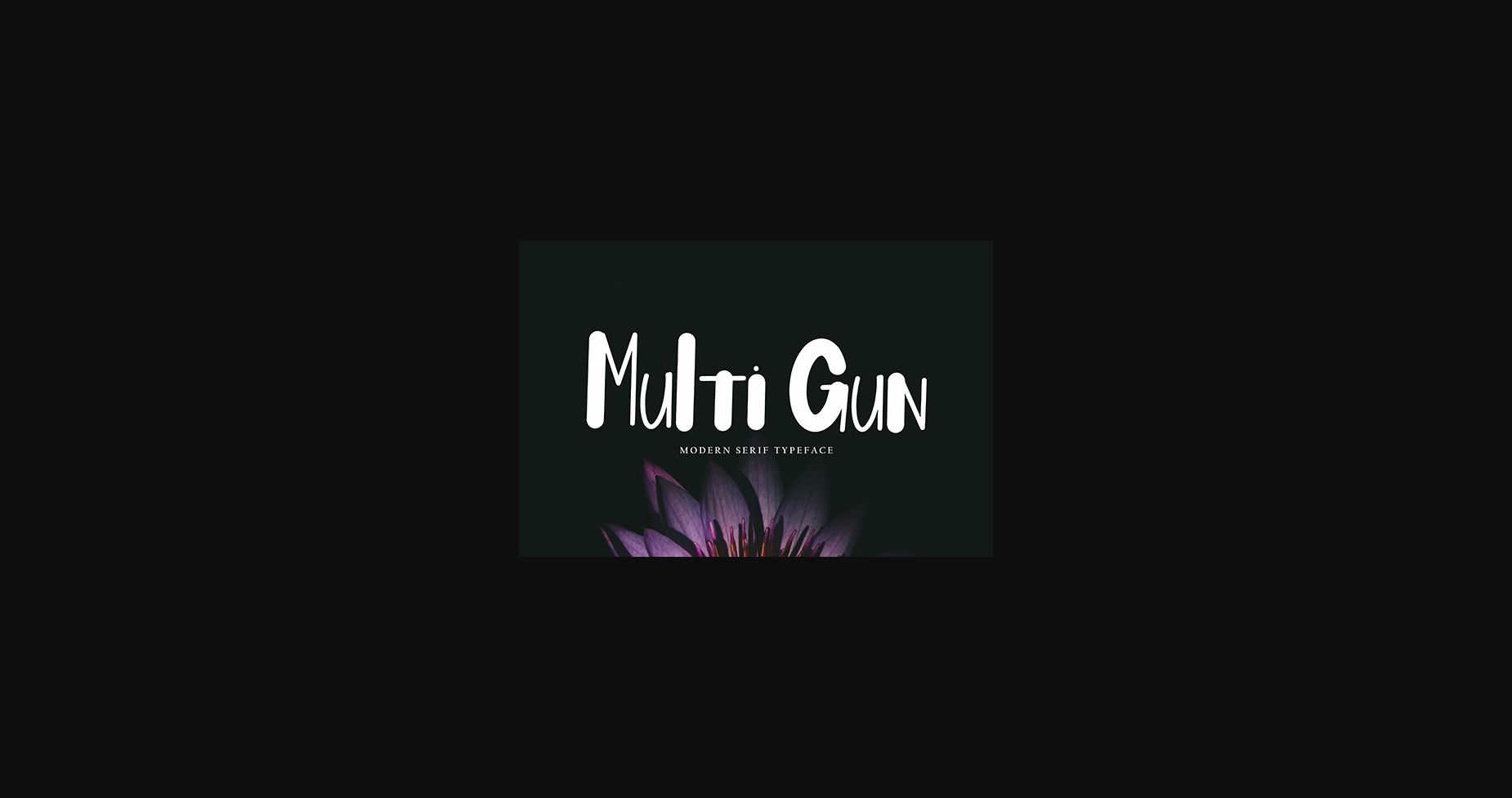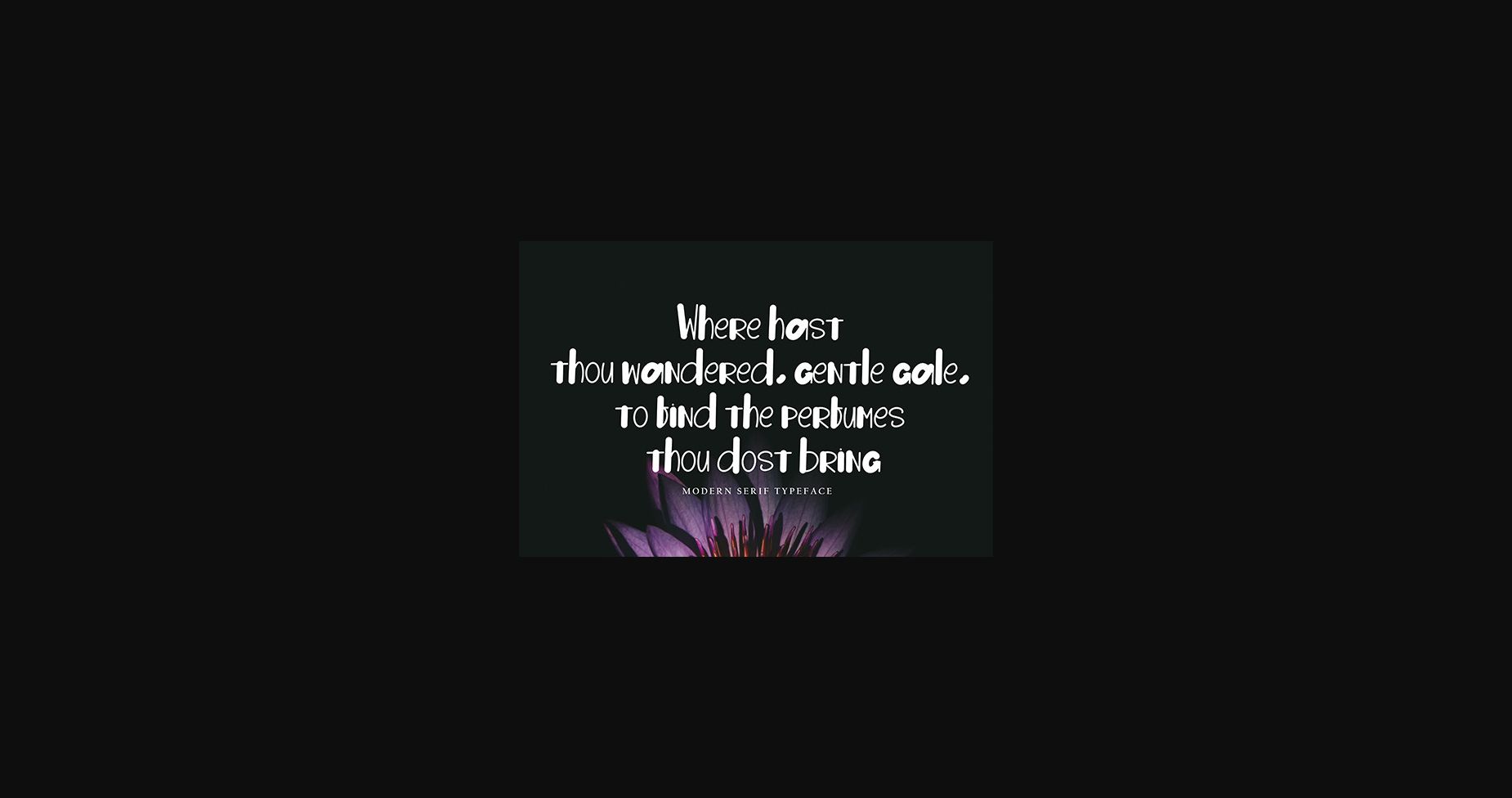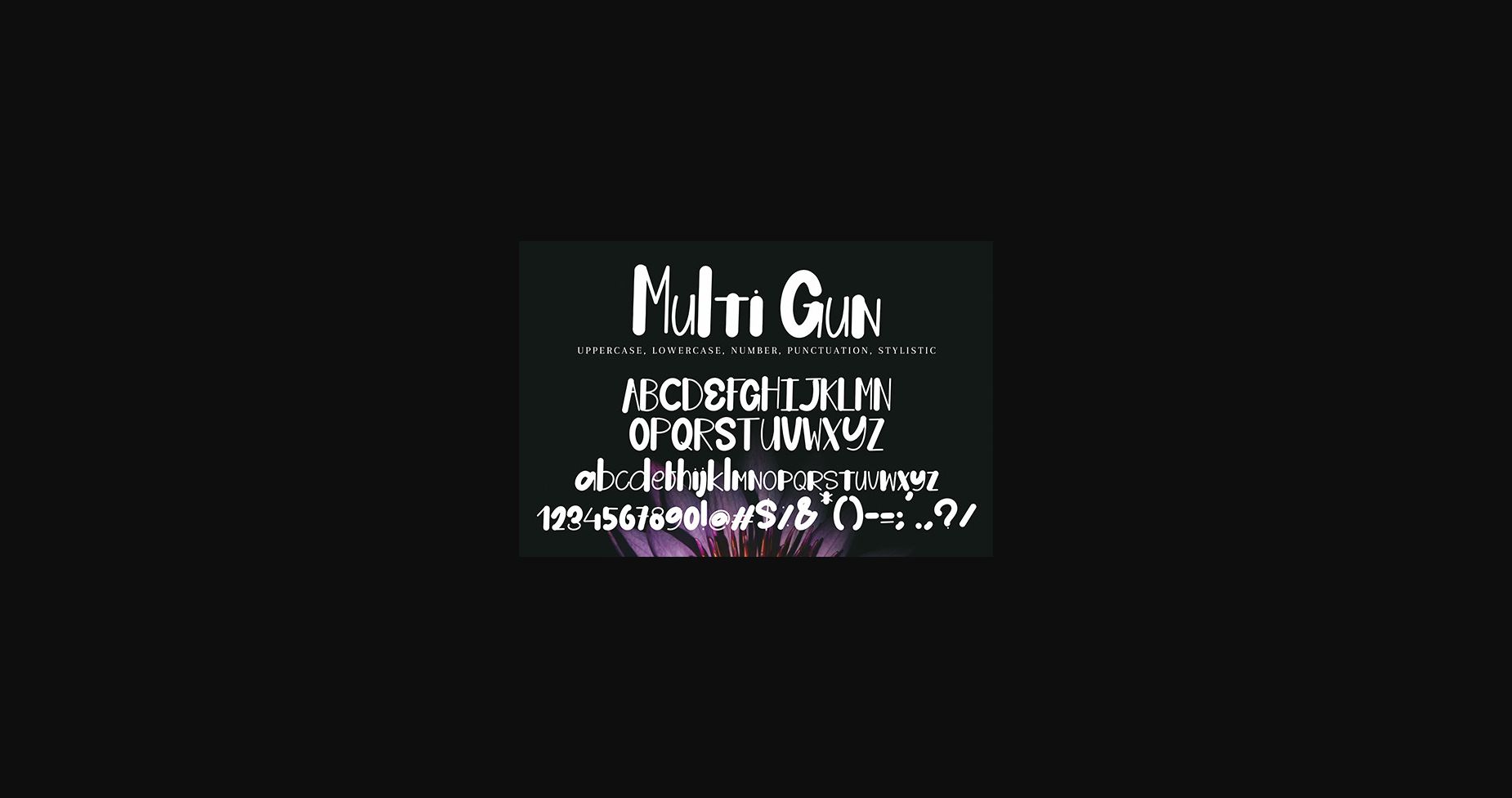
Multi Gun is a cool and casual sans serif font. Masterfully designed to become a true favorite, this font has the potential to bring each of your creative ideas to the highest level!